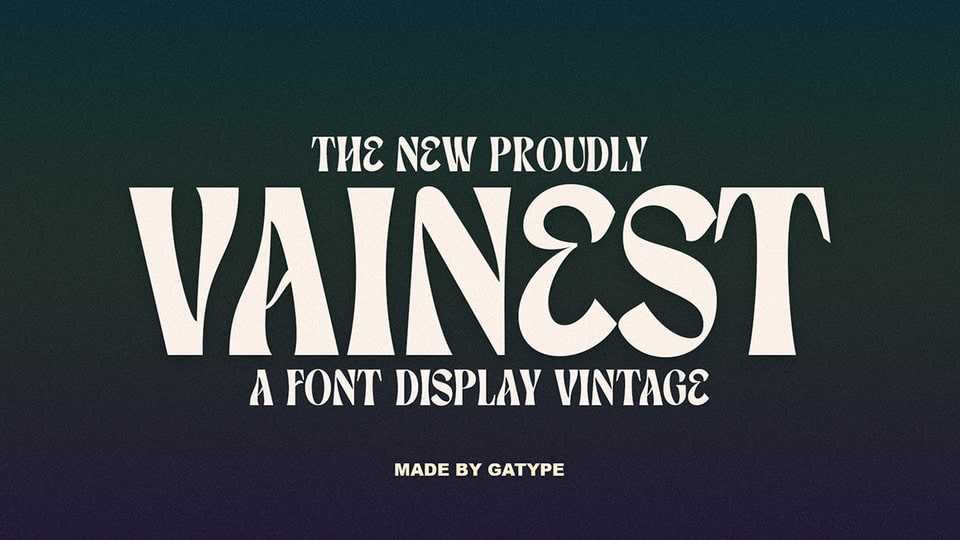
Download Vainest font, a vintage-style display typeface with a modern and retro look. Comes with different styles and helps you create amazing logos and posters.